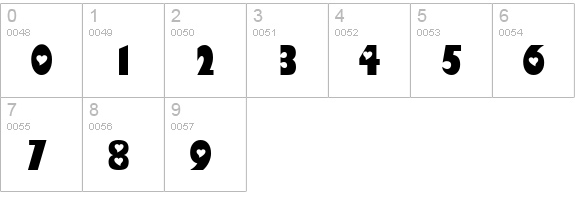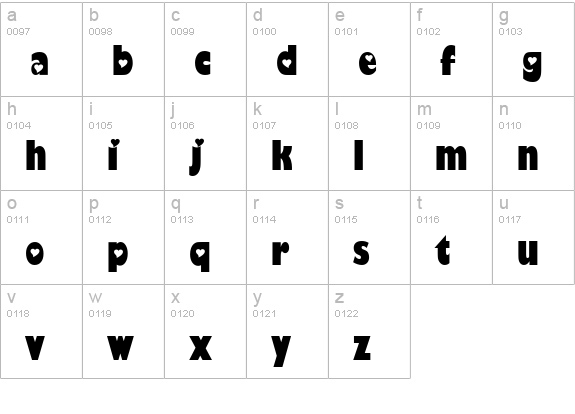
Introducing Hole-HeartedRegular, a font that captures the essence of modern design with a touch of playfulness. This font exudes charisma and charm, making it perfect for a wide range of creative projects. Whether you're designing a logo, crafting eye-catching advertisements, or adding a unique touch to your personal branding, Hole-HeartedRegular is sure to make a lasting impression. Created with meticulous attention to detail, this font features clean lines and smooth curves that effortlessly blend together. The balanced letterforms lend a sense of harmony to your designs, while the subtle variations in stroke width add depth and character. The result is a font that is both versatile and visually appealing. One of the best things about Hole-HeartedRegular is that it is freely available to download at FontsMarket.com. This means that you can easily access this font and start using it in your projects without any restrictions. Whether you're a professional designer or a hobbyist, this font offers endless creative possibilities. With its legibility and distinctive style, Hole-HeartedRegular is suitable for a wide range of applications. It can be used in various contexts, from branding and packaging to web design and print materials. The font's versatility allows it to adapt to different themes and moods, making it ideal for both serious and lighthearted projects. When it comes to typography, attention to detail is crucial, and Hole-HeartedRegular delivers. Each character has been meticulously crafted to ensure optimal legibility and visual impact. Whether used in large headlines or small body text, this font maintains its clarity and readability, ensuring that your message is effectively communicated. In conclusion, Hole-HeartedRegular is a visually captivating font that effortlessly blends modern design with a touch of whimsy. With its freely available download at FontsMarket.com, you can easily incorporate this font into your creative projects and let your imagination run wild. So why wait? Start exploring the endless possibilities that Hole-HeartedRegular has to offer and elevate your designs to new heights.